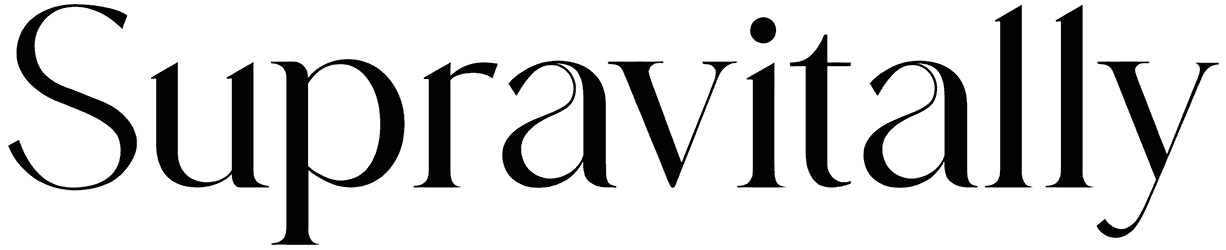
Supravitally Font
Let the classic theme of Supravitally tell the whole world about your professional experience and make you proud. You’ll be lucky to have such a fancy font as the face of your business, so there’s nothing to think about but downloading it.
Style your words so exquisitely with this recommended serif font of RB and design some of the finest business cards for any fashion brand, hotel, tourism company, brewery, and any other profession like that with a luxury aura.